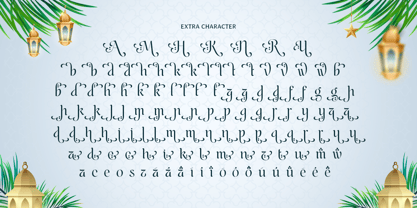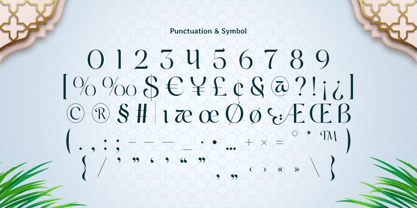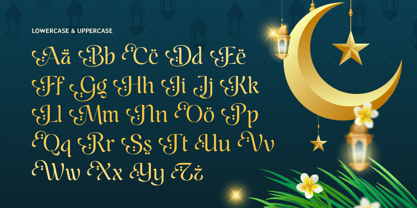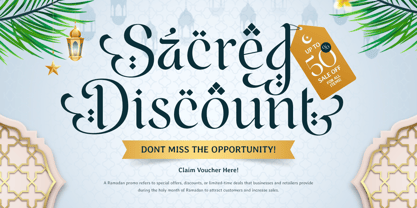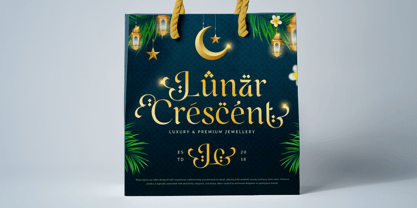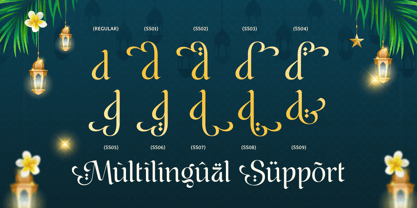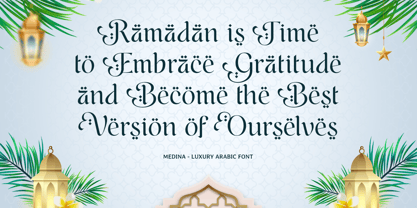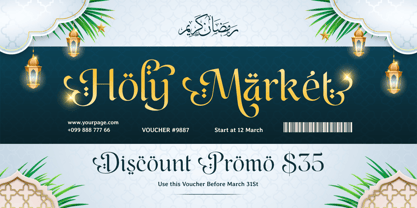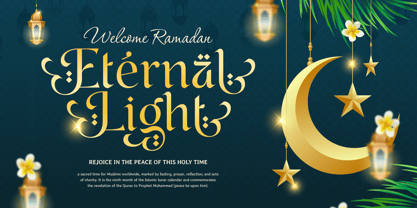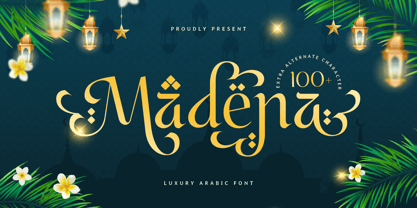
Madena
The Madena Font Family was designed by Zamroni Hamzah and published by Sensatype Studio. Madena contains 1 styles.
Madena - Luxury Arabic Font
Madena is a luxury Arabic font meticulously designed to blend tradition and sophistication. Its sleek curves and refined details make it ideal for high-end branding, Ramadan campaigns, cultural projects, and luxurious product packaging. Madena encapsulates the beauty of Arabic calligraphy while offering a modern edge for contemporary designs.
Inspired by the rich heritage of Islamic art, Madena’s balanced and elegant forms make it versatile for both digital and print media. Whether you’re designing for festive occasions, corporate branding, or artistic expression, Madena adds a touch of class and cultural depth to your projects.
Elevate your designs with Madena, a font that embodies the essence of luxury and Arabic tradition. Its premium features ensure your work stands out, resonating with audiences seeking beauty and authenticity.
Madena Luxury Arabic Font Features:
• Refined Arabic Script for Luxury Branding
• Perfect for Ramadan, Invitations, and Packaging
• Punctuation, Numbers, and Symbols
• Uppercase and Lowercase
• Opentype Features
Multilingual Characters available for:
Afrikaans, Albanian, Asu, Basque, Bemba, Bena, Breton, Chiga, Cornish, Dutch, English, Estonian, Filipino, Finnish, Friulian, Galician, German, Gusii, Indonesian, Irish, Italian, Kabuverdianu, Kalenjin, Kinyarwanda, Luo, Luxembourgish, Luyia, Machame, Makhuwa-Meetto, Makonde, Malagasy, Manx, Morisyen, North Ndebele, Nyankole, Oromo, Portuguese, Quechua, Romansh, Rombo, Rundi, Rwa, Samburu, Sango, Sangu, Scottish Gaelic, Sena, Shambala, Shona, Soga, Somali, Spanish, Swahili, Swedish, Swiss.